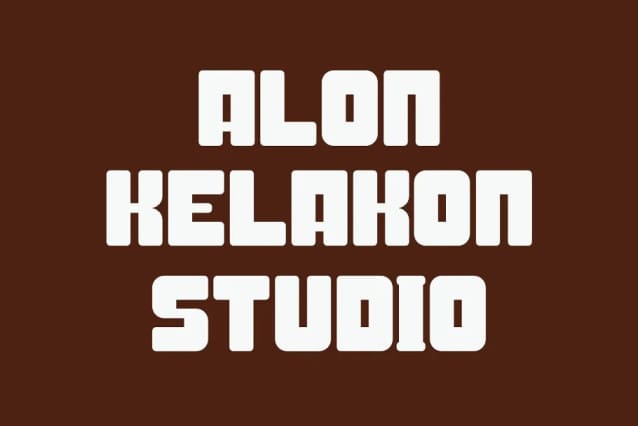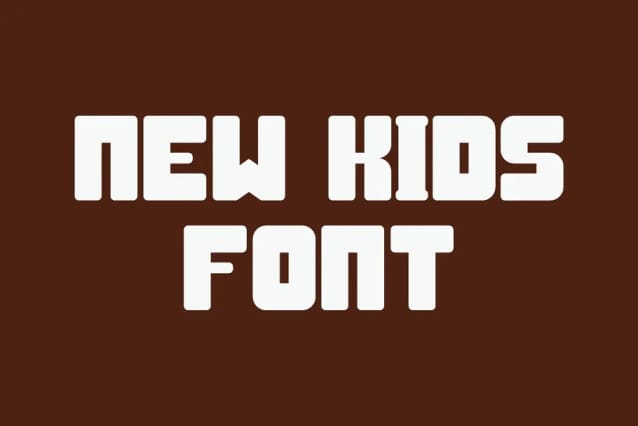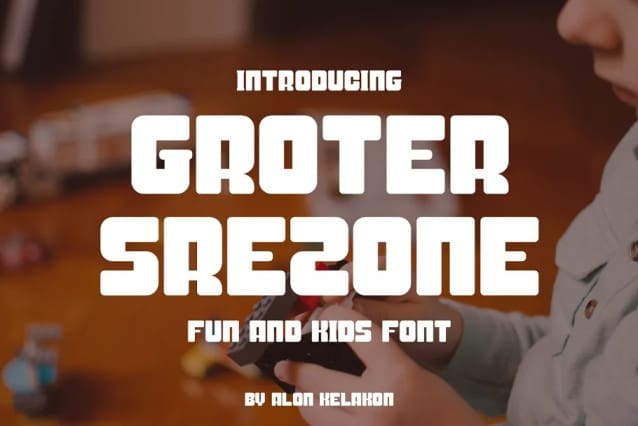
Groter Srezone Font
Groter Srezone Font is unique ready to use for your design like labeling, movie sceen, poster, movie title, gigs, album covers, logos, and much more.